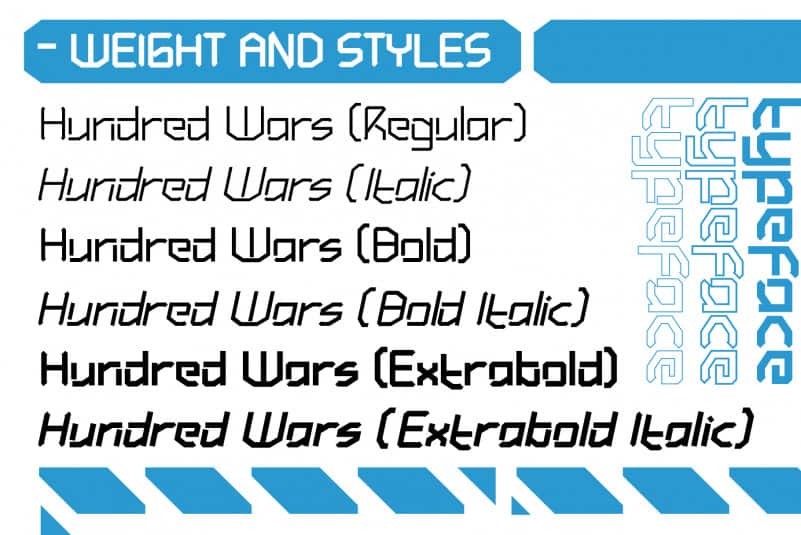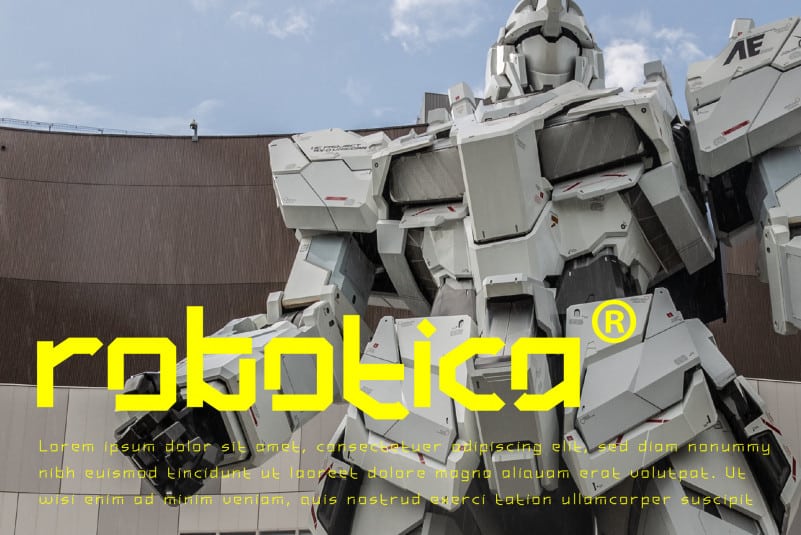
Hundred Wars Cyber Tech Typeface This font gives the impression of a future year where each character of the font has a technological signature. This font is suitable for tech-themed or cyberpunk designs.
Hundred Wars Cyber Tech Typeface gives a gorgeous feel to a variety of branding projects, logos, wedding designs, social media posts, advertisements, and so much more. Let your imagination run free!